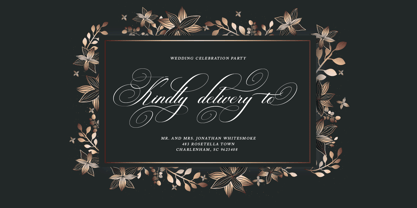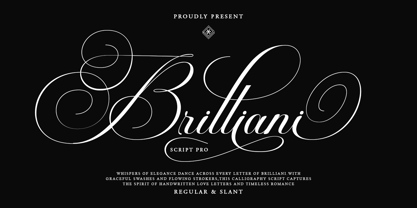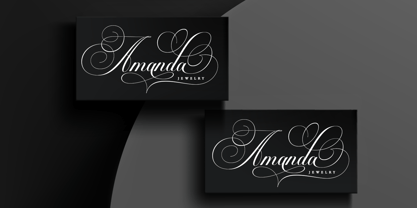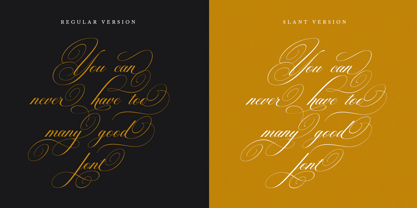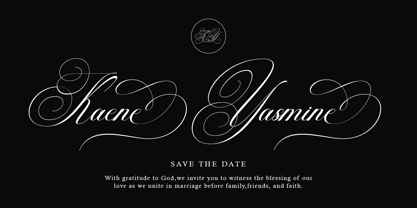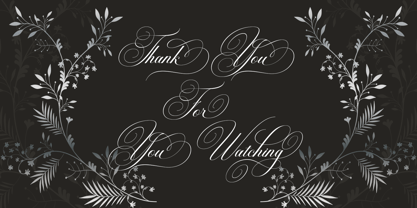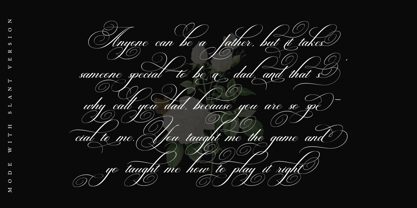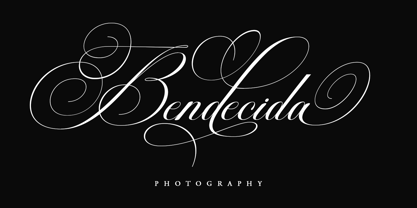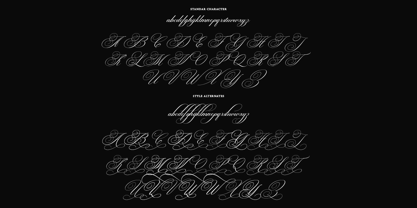
Brilliani Pro
by Hrz Studio
The Brilliani Pro Font Family was designed by Has Rizal and published by Hrz Studio. Brilliani Pro contains 2 styles and family package options. More about this family
Brilliani Pro is a script font that comes with very beautiful changing characters, a kind of classic decorative copper script with a modern touch, designed with high detail to bring stylish elegance. Brilliani Pro is attractive as a typeface that is smooth, clean, feminine, sensual, glamorous, simple and very easy to read, because there are many fancy letter connections. I also offer a number of viable style alternatives for many letters. The classic style is perfect to be applied in various formal forms such as invitations, labels, restaurant menus, logos, fashion, make up, stationery, novels, magazines, books, greeting / wedding cards, packaging, labels or any type of advertising purpose.
Designers: Has Rizal
Foundry: Hrz Studio